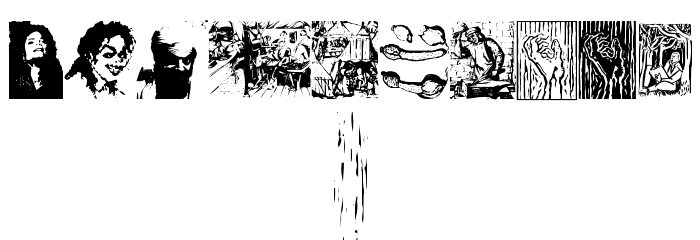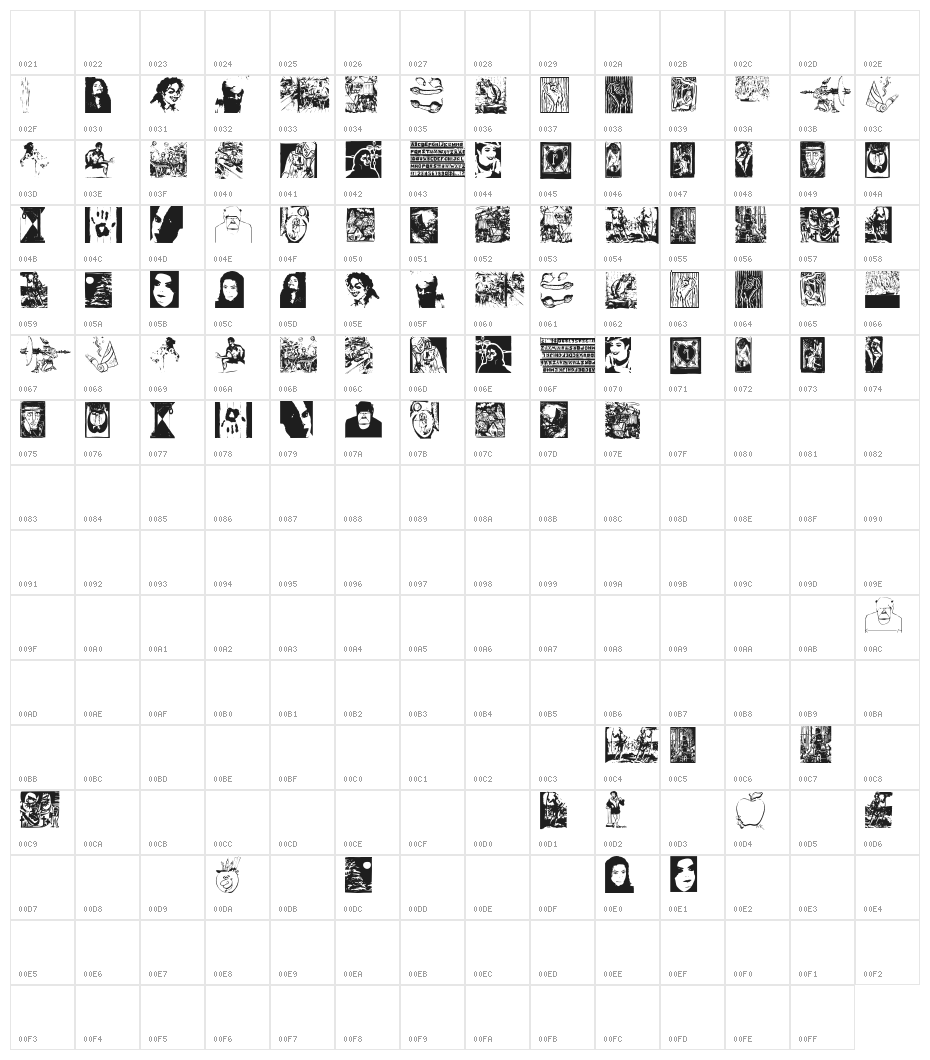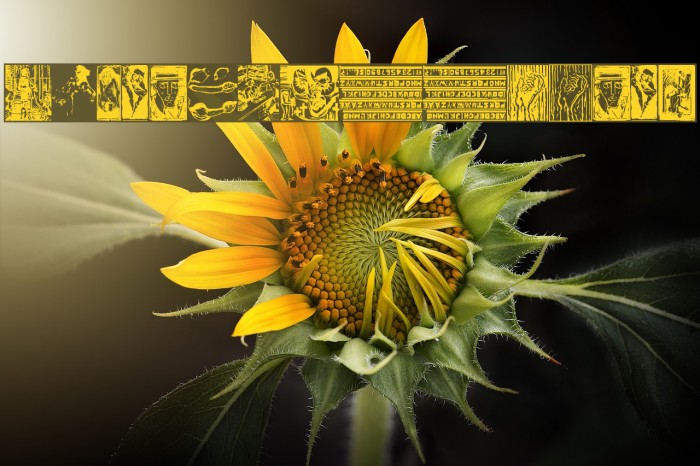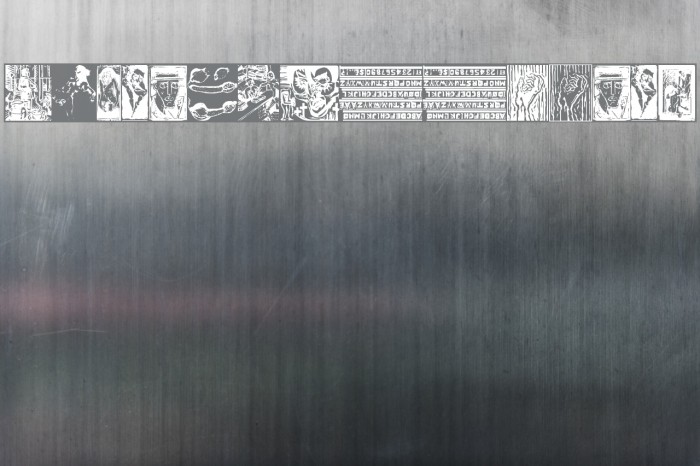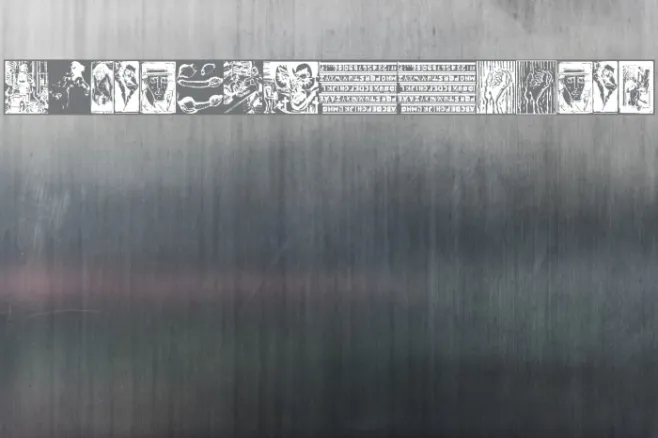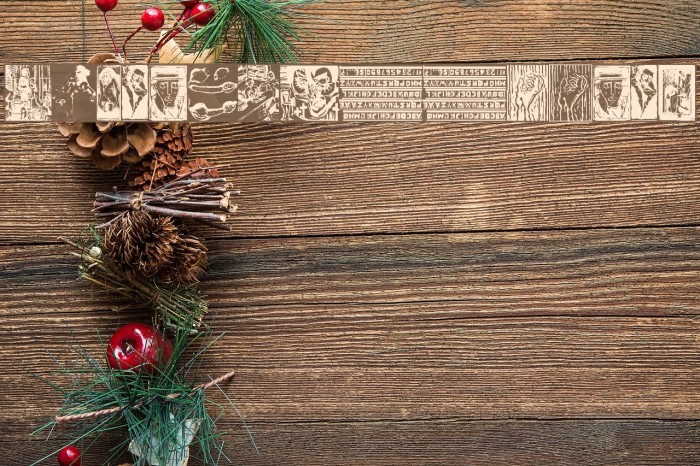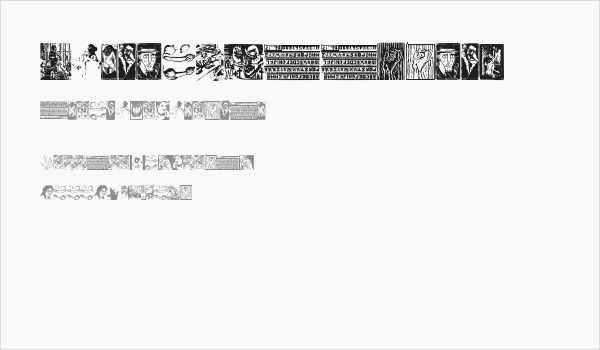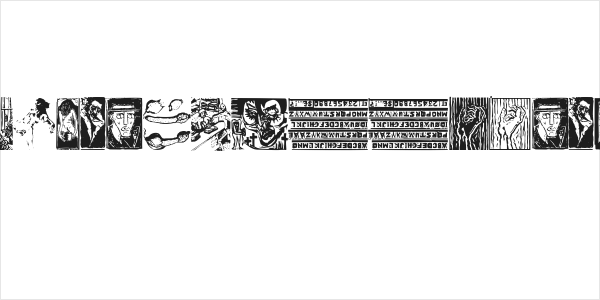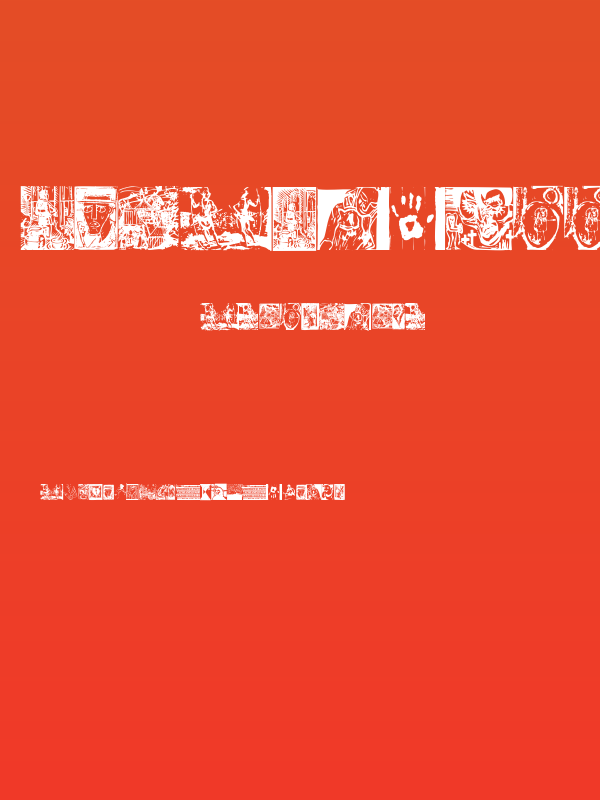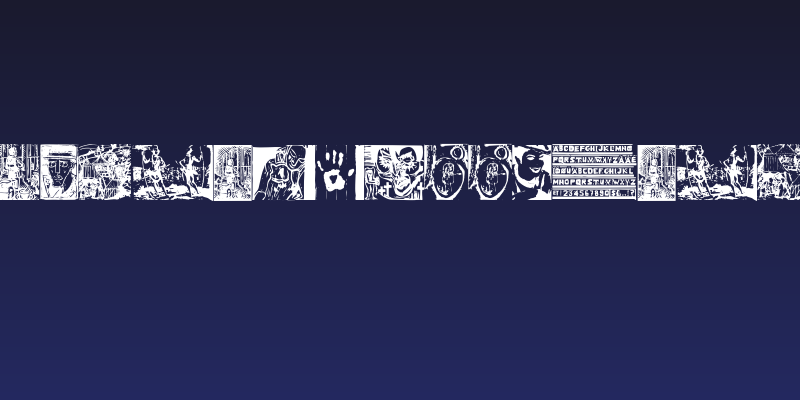
VirtualWoodcuts Font
VirtualWoodcuts Description
Highly decorative and illustrative font composed of woodcut-style images and scenes, with each character represented by a unique, detailed black-and-white illustration rather than traditional letterforms.
| Overall Style | Decorative, Artistic, Vintage |
| Use Case | Headlines, Posters, Artistic projects, Decorative elements |
| Proposed Projects | Book covers, posters, graphic novels, album art, artistic branding, editorial illustrations. |